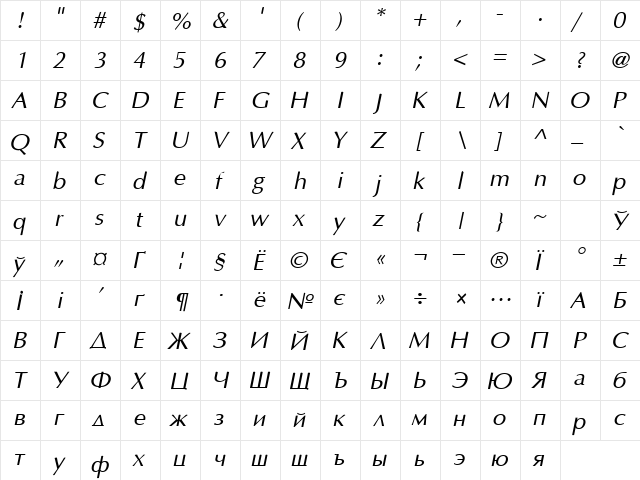
Optima Cyr Italic
Design Context for Optima Cyr Typeface
Optima Cyr takes a measured approach to typography — its balanced proportions and neutral character make it a reliable workhorse for both digital and print work. The slanted form adds forward momentum and visual energy.
Pro Tip: Try Optima Cyr for annotation and caption copy alongside an upright companion — the contrast in angle creates a dynamic but ordered typographic system.